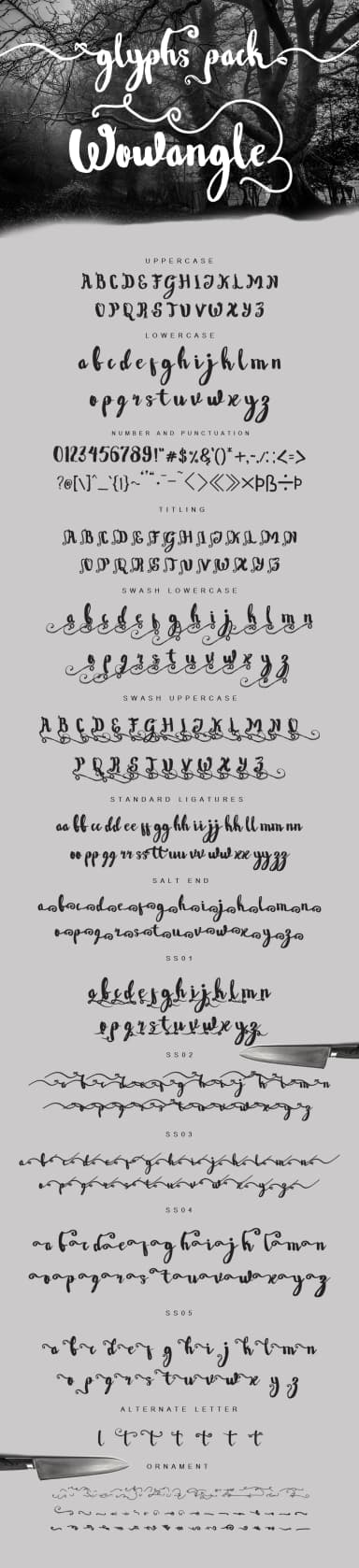
1 / 7About Wowangle Font
Wowangle Font by feydesign is a dynamic brush script with graceful swash elements designed to add warmth and personality to typography-forward projects. The collection spans multiple style variations, including brush, ornament, and sans options alongside uppercase and lowercase swash alternates, that let you customize every single letter for maximum creative control. With extensive stylistic sets, comprehensive OpenType features, and decorative ornaments built in, this font is well-suited for wedding invitation suites, artisanal product labels, hand-lettered greeting cards, and personalized stationery designs. The versatility of Wowangle lies in its thoughtful range of letterforms and rich decorative possibilities. Whether you're crafting boutique cosmetics packaging, designing Etsy shop branding, creating calligraphy-inspired social media content, or developing custom business collateral, the swash options and tilting variants provide precise control to match your creative vision. Each stylistic set unlocks fresh visual directions, making it straightforward to adapt the font across different design contexts without switching typefaces. The combination of graceful swash elements with clean sans alternatives means you can build a cohesive, flexible typographic system from a single font family, maintaining visual harmony across all your design applications. Explore Wowangle Font on Creative Fabrica and see how its extensive features can enhance your next hand-lettered or script-driven project.
- Elegant, Flowing, Wowangle Brush
Wowangle Font is a script font that shines as a display or heading face. Pair it with a clean sans-serif or serif font for body text β the contrast creates a clear hierarchy while the two styles stay balanced and easy to read.
Wowangle Font